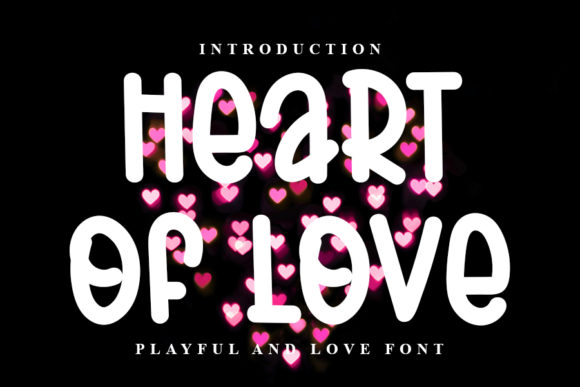
In a world where fonts speak louder than words, let the Heart of Love Font serenade your designs with its enchanting melody. This display font, crafted by the masterful hands of FL Space, is not just a collection of letters; it's an expression of pure joy and endless possibilities.
Meet Heart of Love, the font that will ignite your designs with its playful spirit and undeniable charm. Its simple, all-round, and clean strokes exude a sense of elegance and sophistication, while its jolly spirit infuses your creations with a vibrant energy that captivates the senses.
With Heart of Love, the boundaries of creativity dissolve, and a world of endless variations awaits your exploration. This font is a versatile chameleon, effortlessly adapting to a multitude of design landscapes, from the playful innocence of school websites to the polished professionalism of corporate presentations.
Imagine the allure of your school website, where the Heart of Love Font dances across the screen, inviting students and parents alike into a world of knowledge and wonder. Its warm and welcoming presence will create an atmosphere that fosters learning and ignites imagination.
But Heart of Love's talents extend far beyond the confines of school websites. Its versatility shines in logos, branding, posters, and social media graphics, where its ability to capture attention and convey messages with clarity and impact is unparalleled.
As you embark on your design journey with Heart of Love, you'll discover a font that is not just a tool, but a muse. Its playful spirit will inspire you to think outside the box, to explore uncharted creative territories, and to create designs that leave a lasting impression.
So, embrace the Heart of Love Font and let its enchanting melody transform your designs into captivating masterpieces. Embrace the endless variations, let your creativity soar, and fall in love with the power of typography.